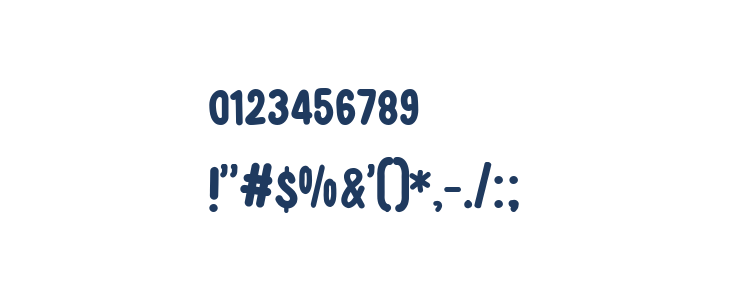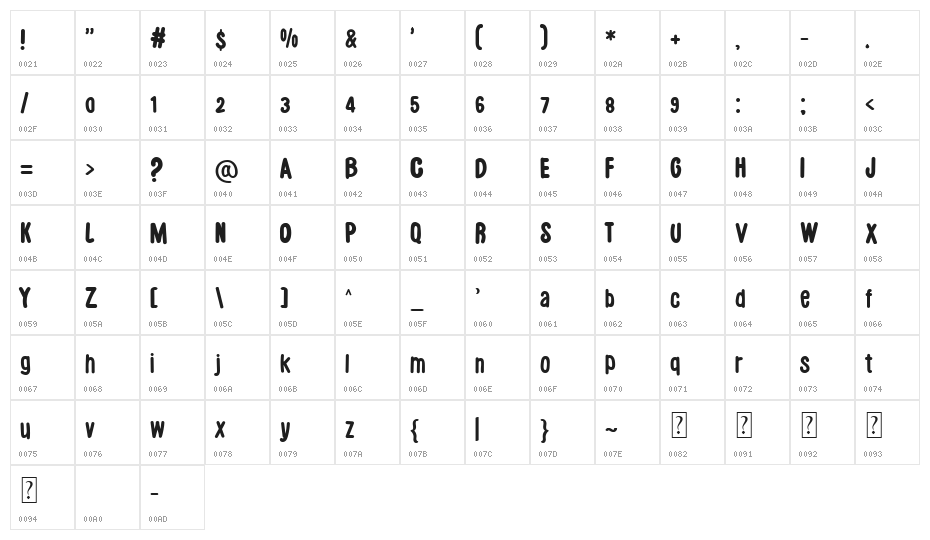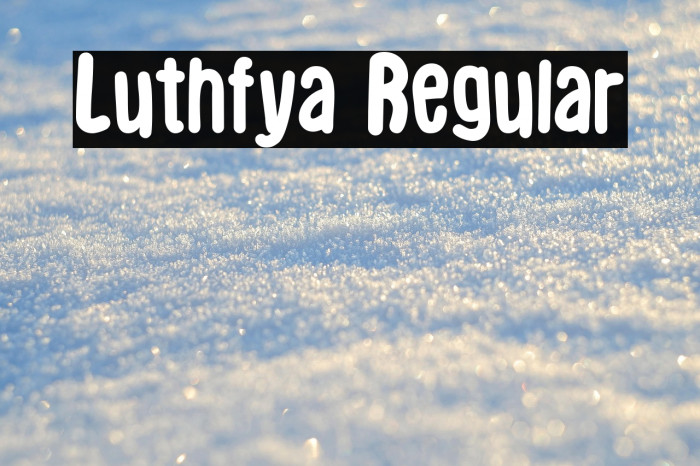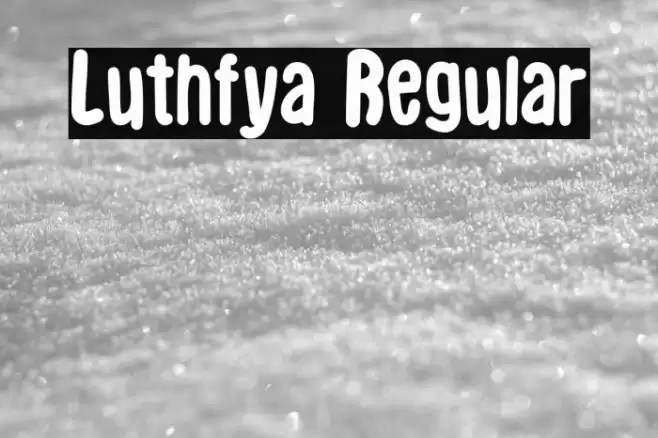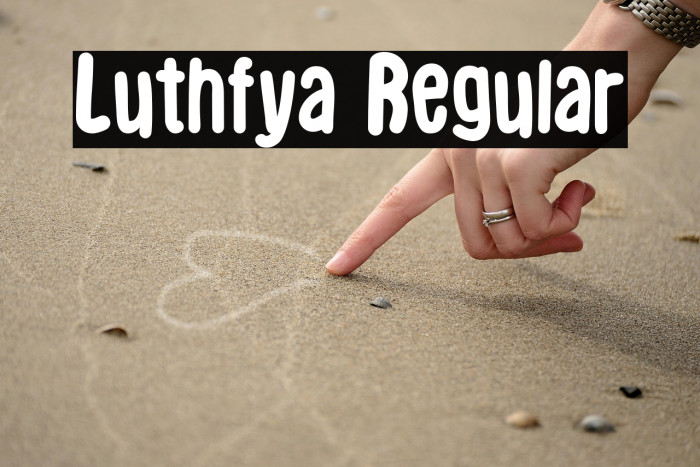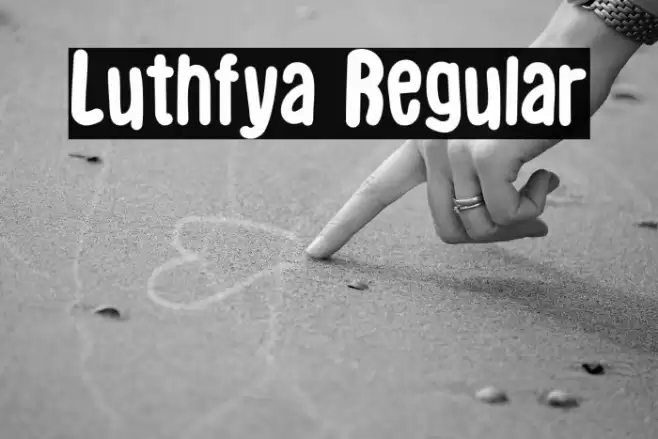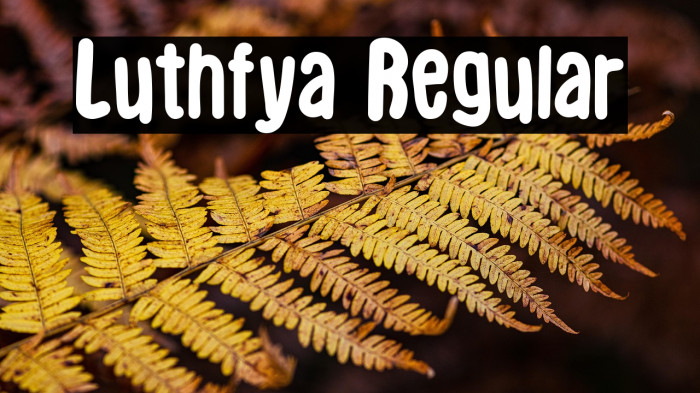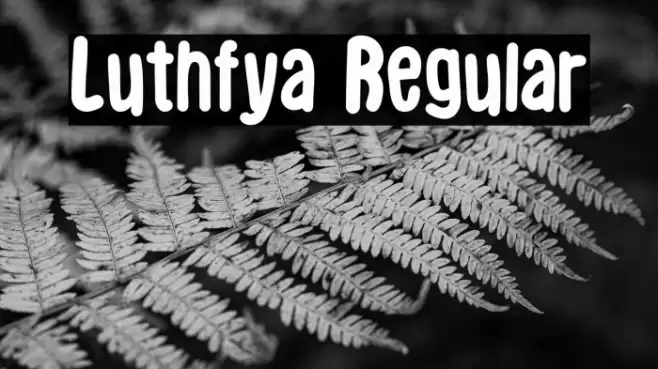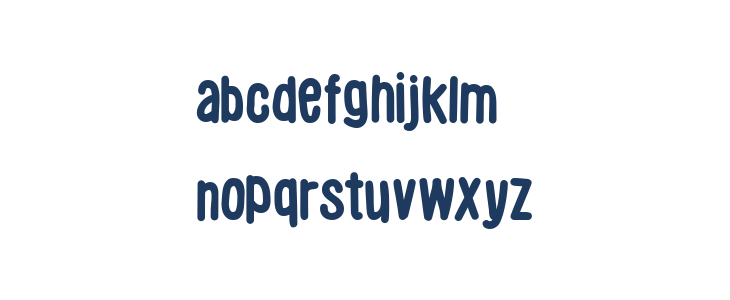
Luthfya Regular Font
Luthfya Regular Description
This font features a playful and bold style with rounded edges, giving it a friendly and approachable appearance. The characters are slightly condensed, which adds to its unique charm. The uppercase and lowercase letters maintain a consistent weight, ensuring readability while adding a touch of whimsy. The numerals and special characters are designed to match the overall aesthetic, making them suitable for a variety of creative projects. The font's boldness and rounded forms make it ideal for headlines, posters, and branding materials where a fun and engaging look is desired.
| Overall Style | Playful, Friendly |
| Proposed Projects | Ideal for children's books, playful branding, posters, and social media graphics. |